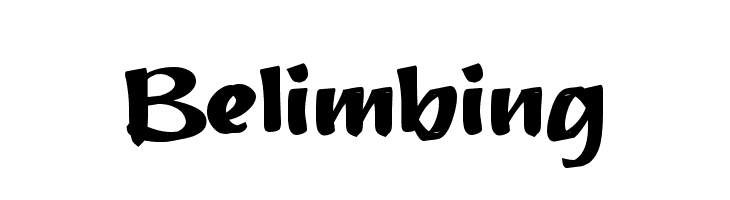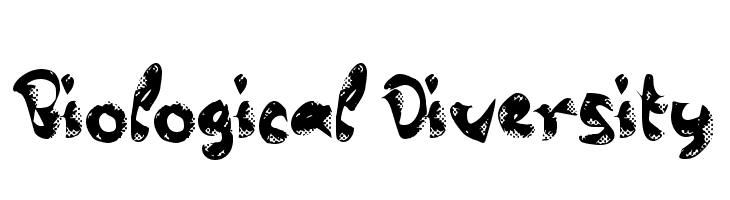
A bold, brush-style font with dynamic curves and a hand-drawn appearance.
A bold, hand-drawn font with a playful and dynamic style.
A bold, distressed font with a rugged, hand-drawn appearance.
A bold, textured font with a frosty, distressed appearance.
A playful, bold font with wavy, hand-drawn strokes and a whimsical style.
A bold, expressive handwritten font with thick, uneven strokes and a playful style.
A bold, distressed font with a rugged, textured appearance.
A bold, hand-painted style font with textured, irregular characters.
A playful, bold, and whimsical font with a hand-drawn aesthetic.
A bold, expressive font with a hand-drawn, energetic style.